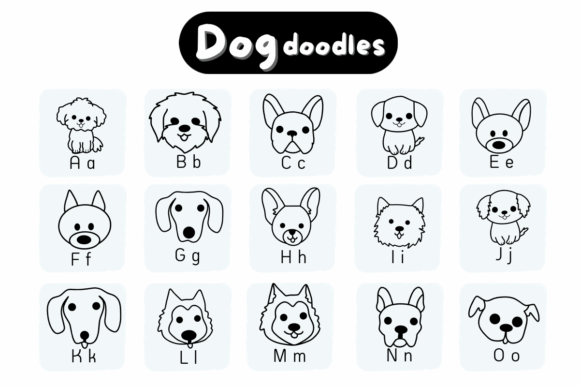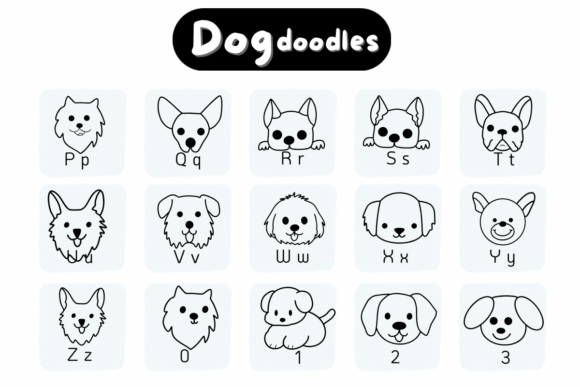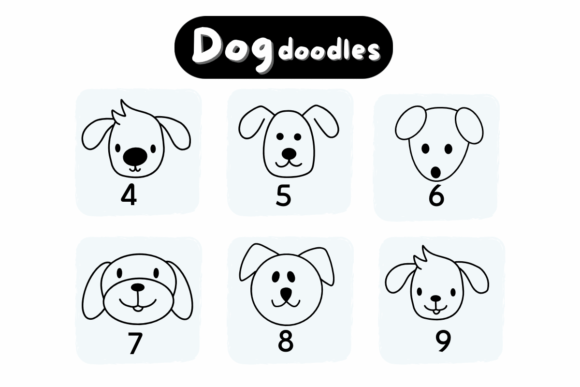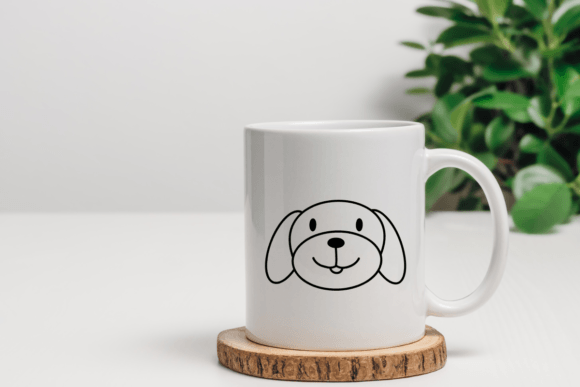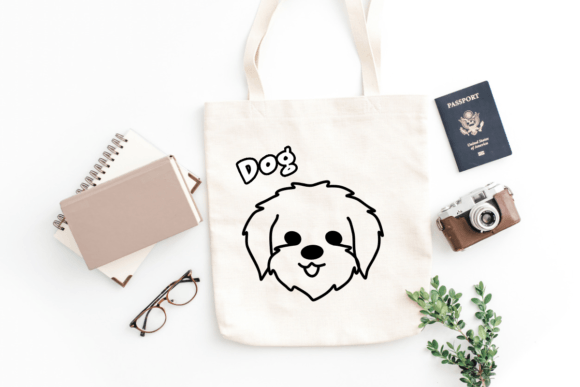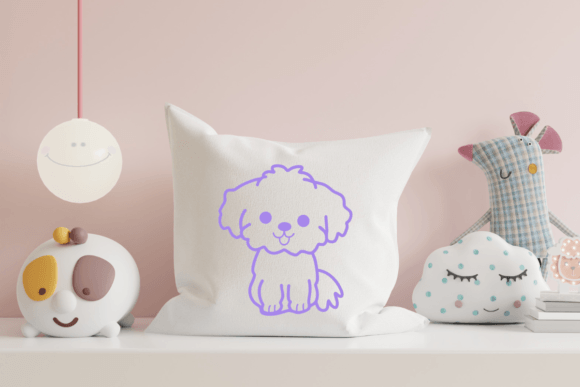
Unleash the Cuteness: Exploring the Delightful World of Dog Doodles Font
Are you a designer or crafter looking for a unique and playful way to add a personal touch to your creations? Look no further than the Dog Doodles Font, a charming and whimsical font that replaces traditional letters with adorable dog faces. In this article, we’ll dive into the world of Dog Doodles Font, exploring its features, uses, and benefits, as well as provide tips and inspiration for incorporating this delightful font into your designs.
What is Dog Doodles Font?
Dog Doodles Font is a one-of-a-kind font that features a collection of fun and expressive dog faces, each one representing a different symbol or letter. This innovative font is perfect for designers and crafters who want to add a touch of personality and whimsy to their work. Whether you’re creating greeting cards, invitations, posters, or social media graphics, Dog Doodles Font is sure to bring a smile to your audience’s faces.
Features of Dog Doodles Font
- Unique and Playful Design: Each symbol in Dog Doodles Font features a different adorable dog face, making it a standout from traditional fonts.
- Variety of Breeds: The font includes a range of dog breeds, from Poodles to Bulldogs, ensuring there’s something for every dog lover.
- Easily Readable: Despite its playful nature, Dog Doodles Font is surprisingly easy to read, making it perfect for headlines, titles, and short text.
- Scalable: The font is highly scalable, allowing you to use it in a variety of design applications, from small icons to large posters.
Uses of Dog Doodles Font
Dog Doodles Font is incredibly versatile and can be used in a wide range of design projects, including:
- Greeting Cards and Invitations: Add a personal touch to your cards and invites with cute dog faces.
- Posters and Flyers: Create eye-catching posters and flyers for dog-related events, pet stores, or animal shelters.
- Social Media Graphics: Use Dog Doodles Font to create engaging social media graphics, such as Facebook posts, Instagram stories, and Twitter headers.
- Branding and Packaging: Add a playful touch to your brand’s packaging, labels, or business cards.
Benefits of Using Dog Doodles Font
So, why should you choose Dog Doodles Font for your designs? Here are just a few benefits:
- Emotional Connection: Dog Doodles Font is sure to evoke emotions and create a connection with dog lovers.
- Unique and Memorable: The font’s playful design ensures your designs will stand out and be remembered.
- Fun and Lighthearted: Dog Doodles Font adds a touch of whimsy and fun to your designs, perfect for lighthearted projects.
Tips for Using Dog Doodles Font
To get the most out of Dog Doodles Font, here are a few tips:
- Use it Sparingly: Balance Dog Doodles Font with traditional fonts to avoid overwhelming your design.
- Experiment with Colors: Try pairing Dog Doodles Font with bright, bold colors to enhance its playful nature.
- Mix and Match: Combine Dog Doodles Font with other fonts and graphics to create a unique look.
Need some inspiration for using Dog Doodles Font? Here are a few ideas to get you started:
- Dog-Themed Party Invites: Create adorable invitations for dog-themed parties or events.
- Pet Store Promotions: Use Dog Doodles Font to create eye-catching promotions and advertisements for pet stores.
- Animal Shelter Awareness: Help raise awareness for animal shelters and rescue organizations with impactful designs.
In conclusion, Dog Doodles Font is a delightful and playful font that’s sure to bring a smile to dog lovers’ faces. With its unique design, versatility, and emotional connection, it’s the perfect addition to any design project. So why not give it a try and unleash the cuteness in your designs?